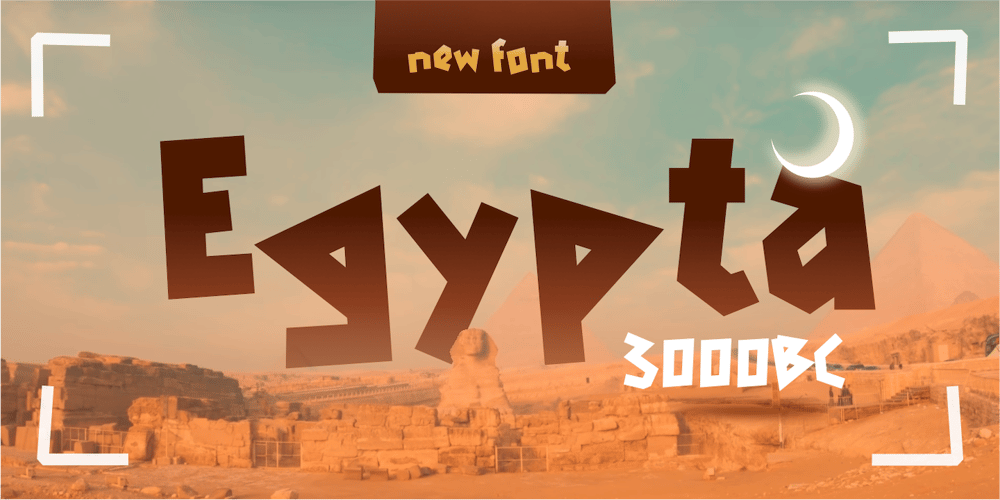
Egypta Font Family was designed by Wahyu Eka Prasetya, Afiat Sukmaraga and published by Hati. Egypta contains 1 styles and family package options. This font draws from ancient Egyptian aesthetics, featuring bold, iconic shapes and hieroglyphic influences. It evokes the grandeur and mystery of ancient pyramids, pharaohs, and the Nile, perfect for designs rooted in history and mythology.